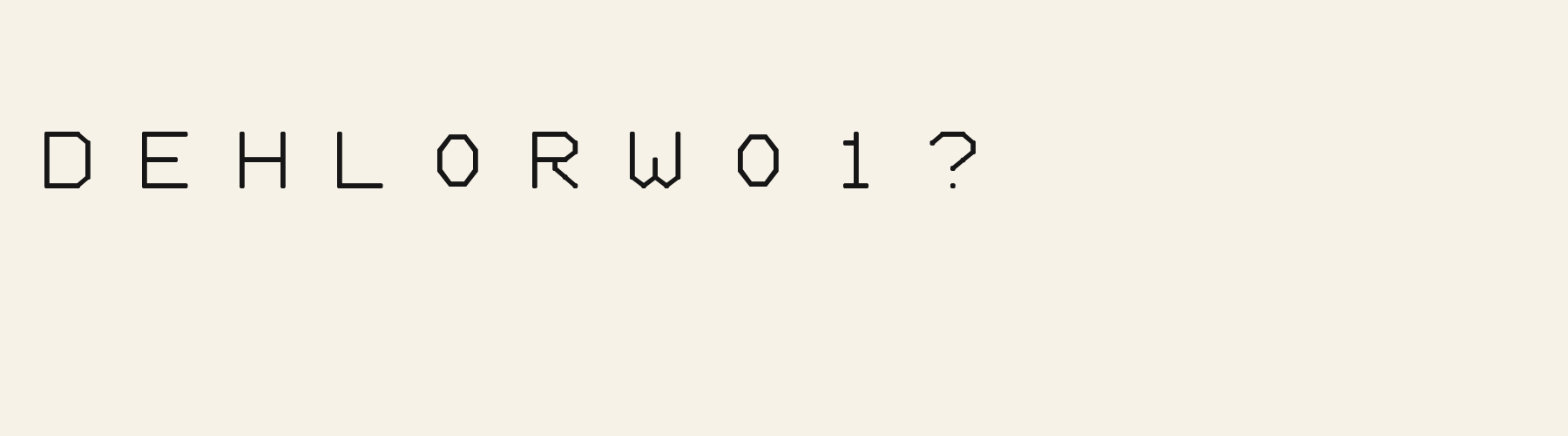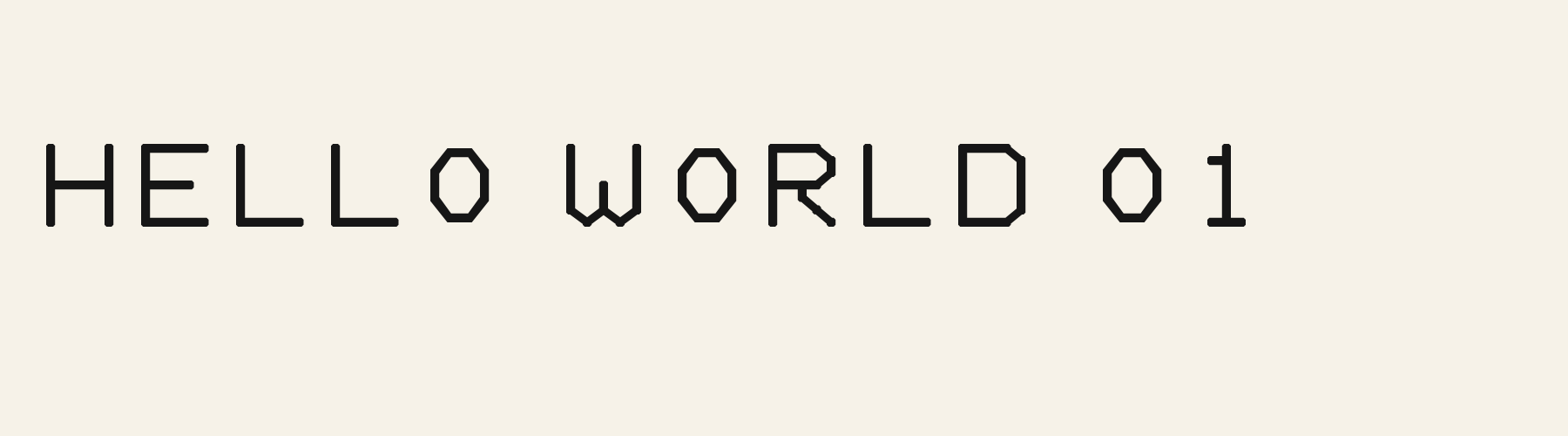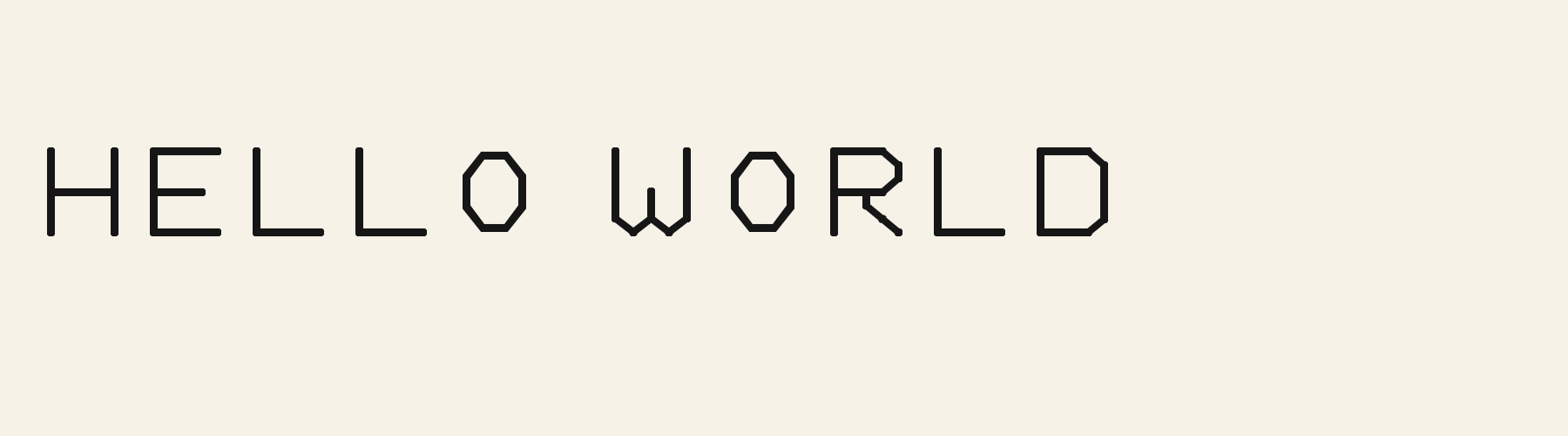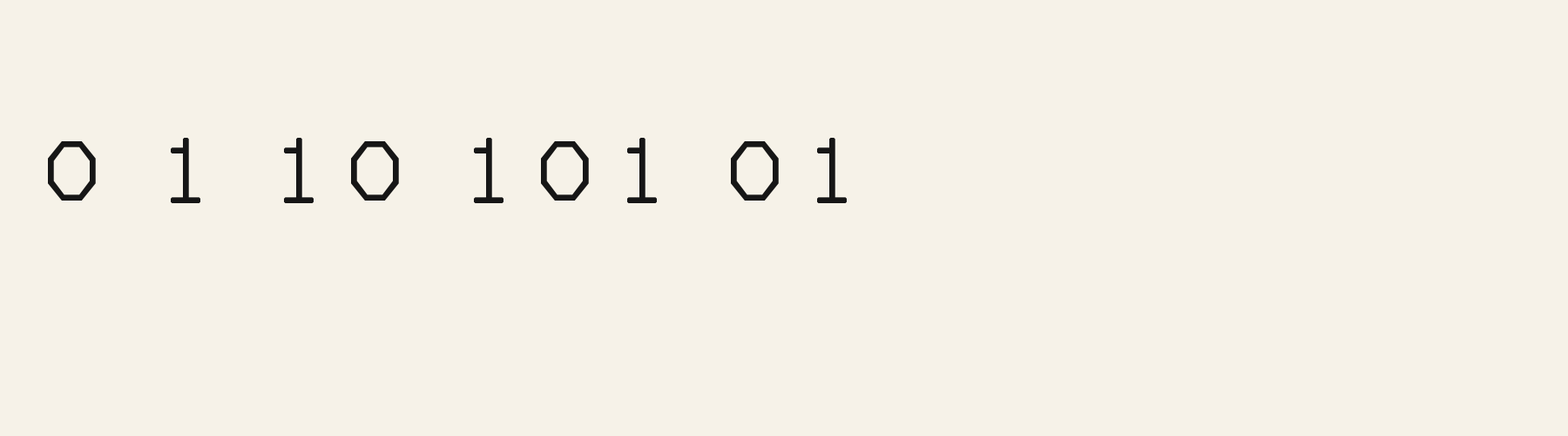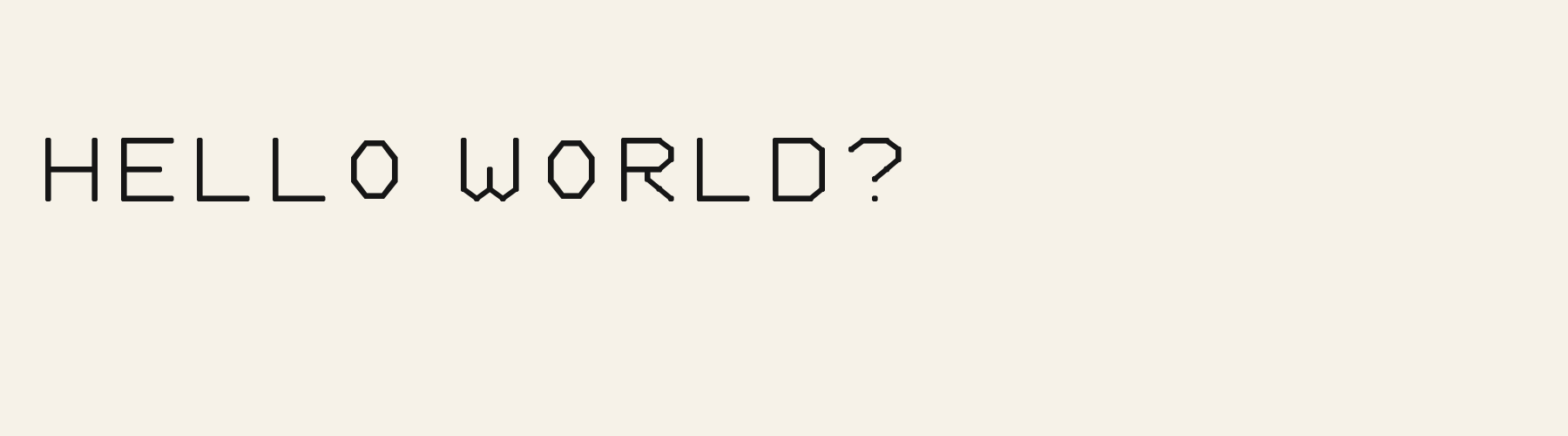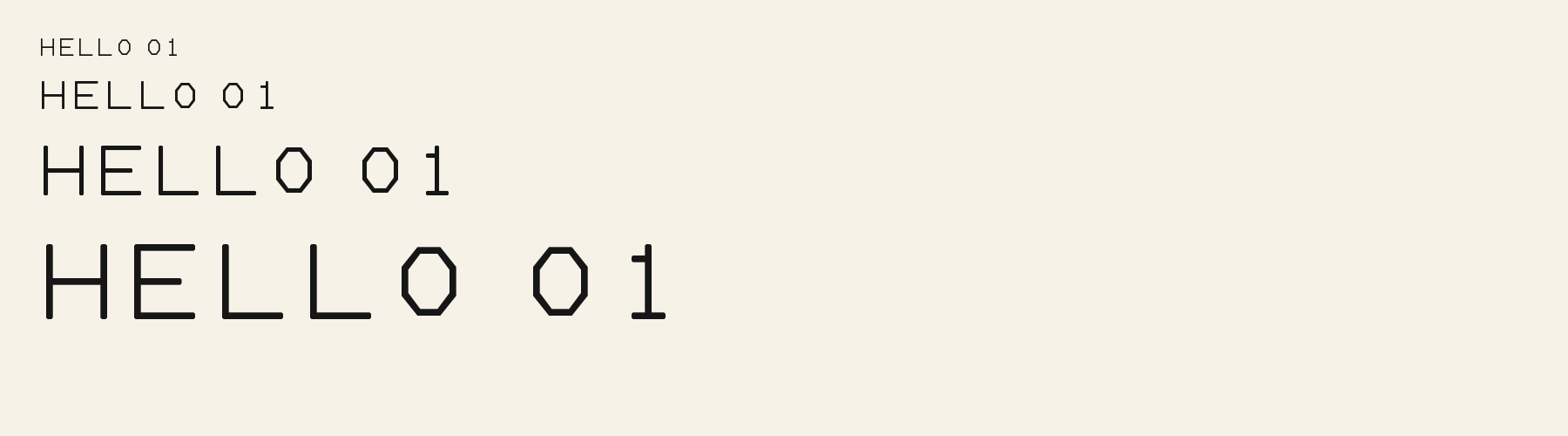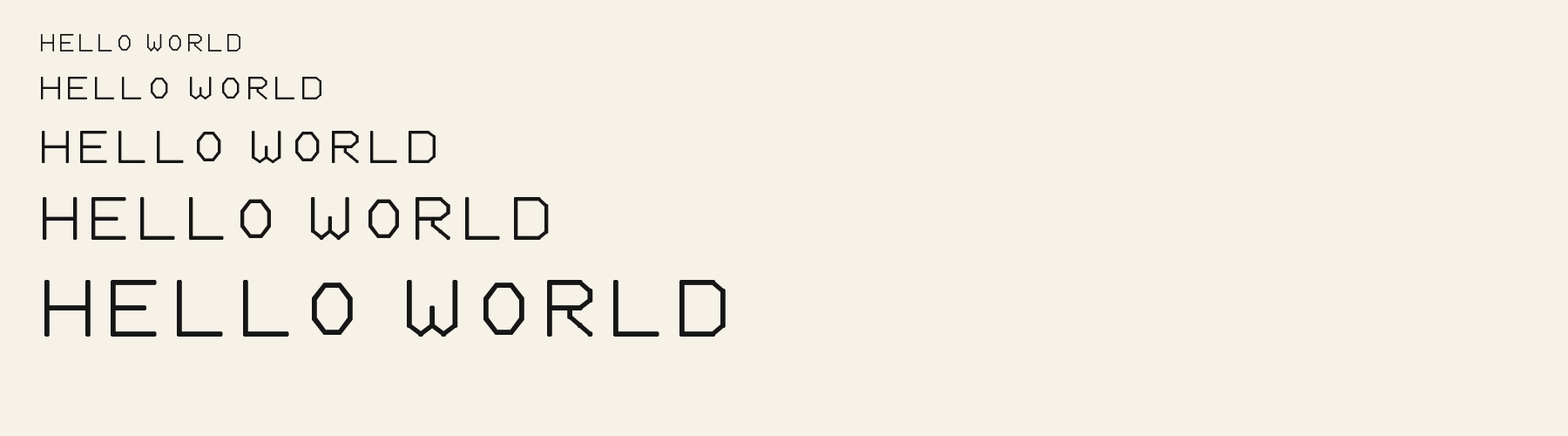
Geo Octagon Counter Wide Faceted Sports Font
Geo Octagon Counter builds its identity around open interiors and straight strokes that turn through clipped corners.
Wide Faceted Sports Letterforms
Geo Octagon Counter builds its identity around open interiors and straight strokes that turn through clipped corners. The O forms a closed polygon with flat top and bottom edges, sitting slightly inside the height of its neighbours. The W drops into paired pointed valleys beneath tall outer stems, while the R combines a chamfered bowl with a stepped diagonal leg. Even stroke thickness keeps these different constructions connected. Broad spacing and generous letter widths give the line a measured, technical rhythm, while the plain H and L leave room for the more distinctive shapes to stand out.
Inspect O beside straight capitals, the junctions in W, and the stepped R leg in your actual wording. Check word spacing before tightening a headline. These specimens show Latin capitals; review accented Latin characters and any other scripts separately in the intended fallback setup.
Try this face for short headings, with a compact humanist sans for supporting text and labels. Its broad spacing and faceted O establish a strong headline texture; a companion with softer curves and denser text spacing could make longer explanations easier to scan.
Geo Octagon Counter: letterforms and layout
Compare smaller and larger previews. At the larger setting, inspect the diagonal corners of O and the stepped start of R’s leg; at the smaller setting, check whether those details remain distinct in your final layout.
Geo Octagon Counter gives O a closed outline with flat horizontal sections and diagonal corners. That faceted shape repeats the angular movement of W and R, making the word feel more consistently polygonal.
Geo Circle Open uses a curved O with a small opening on its right side. Its rounded bowl interrupts the straight strokes and angular joins elsewhere, offering a softer circular accent within the same shared wording.
Poster. Broad capitals and faceted bowls give a sports poster a structured rhythm, especially when the headline has room to spread. HOME CREW
T-shirt print. The angular W and closed polygonal O give short team lettering distinctive shapes without adding decorative outlines. NEW TERRITORY
Website headline. Even strokes and spacious interiors suit a technical website headline, with the stepped R adding a recognisable detail.
The scenes are illustrations drawn on this page with Geo Octagon Counter itself, not client work.
About Geo Octagon Counter
Its x-height is 69.6% of the cap height, near the 71.4% typical of sans serif fonts in the library, lower than 26 of the 34 other sans serif fonts. Ascenders on b, d, h, k and l line up with the capitals (100% of their height), and descenders on g, j, p, q and y drop 30.4% of the cap height below the baseline, deeper than 27 of the 34 other sans serif fonts. It sets wide: an average lowercase letter, spacing included, is 116% as wide as the capitals are tall (an average capital, 116.7%), 48.1% more than the median for sans serif fonts, so the same words take a longer line. The o is wider than it is tall, 1.19 to 1, and M and W are the widest capitals, at 1.12 times the width of H. The O stops 4.5% of the cap height short of H and stands 4.5% above the baseline.
The letters stand upright, leaning less than 2.5° either way. Vertical stems measure 8.9% of the cap height, lighter than 19 of the 28 other sans serif fonts. Ink covers 16.4% of each lowercase letter's box (its advance width by the cap height), lighter than 31 of the 34 other sans serif fonts. Strokes keep one thickness in every direction: the sides of o and O measure the same as their tops and bottoms. Geo Octagon Counter comes in Regular and Bold; Bold puts down 23% more ink than Regular.
Its 159 characters include 116 Latin letters, plus 43 figures, punctuation marks and symbols; 64 of the Latin letters are accented or special forms beyond A to Z. The word space measures 56.4% of the cap height, and the blank space either side of a lowercase letter takes up 34.7% of its width. The font carries no kerning, so spacing comes from each letter’s own side bearings. All ten figures share one width, so columns of numbers line up.